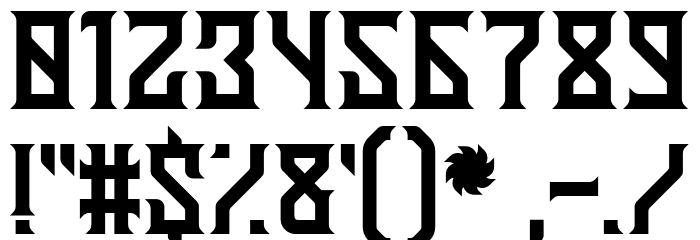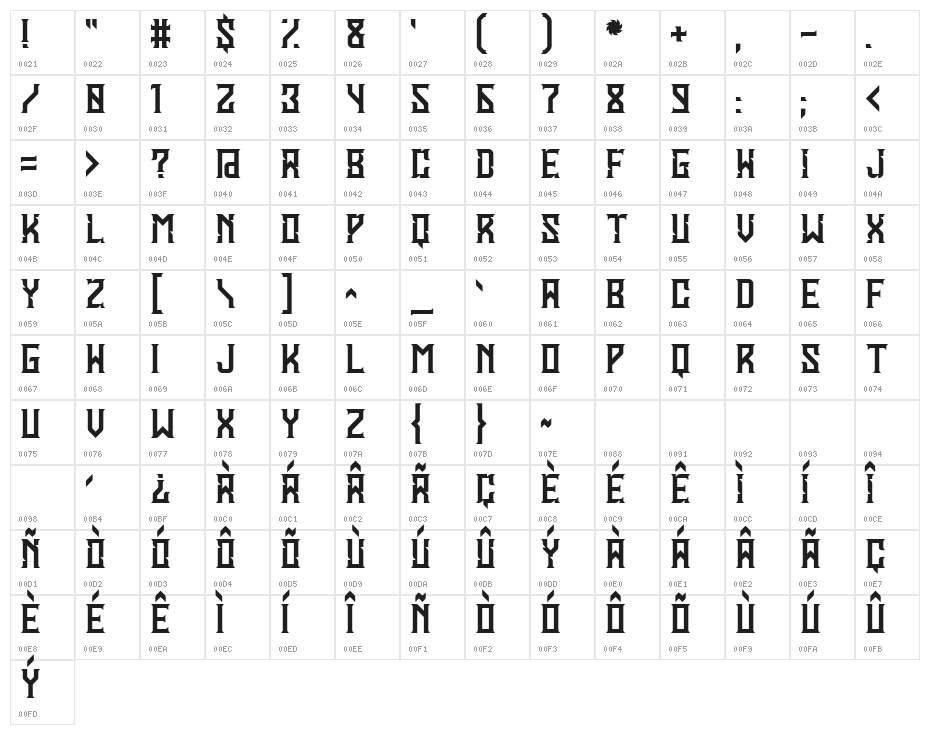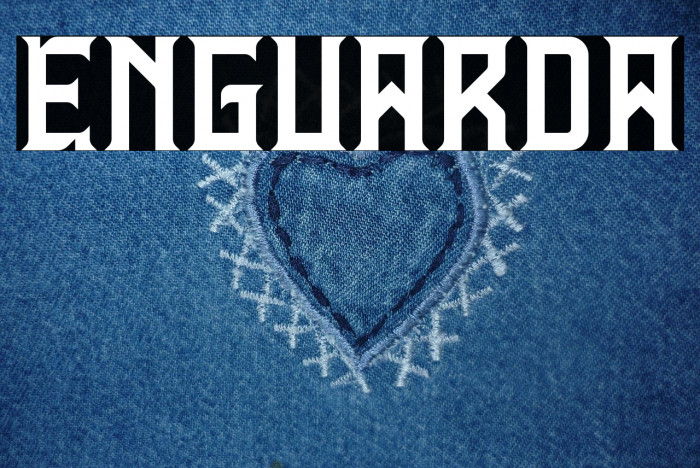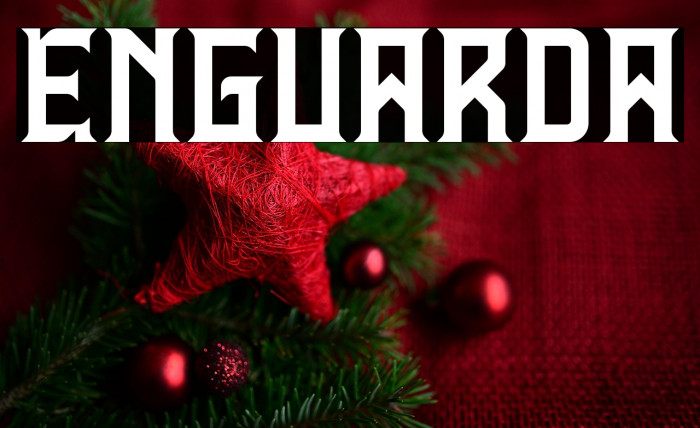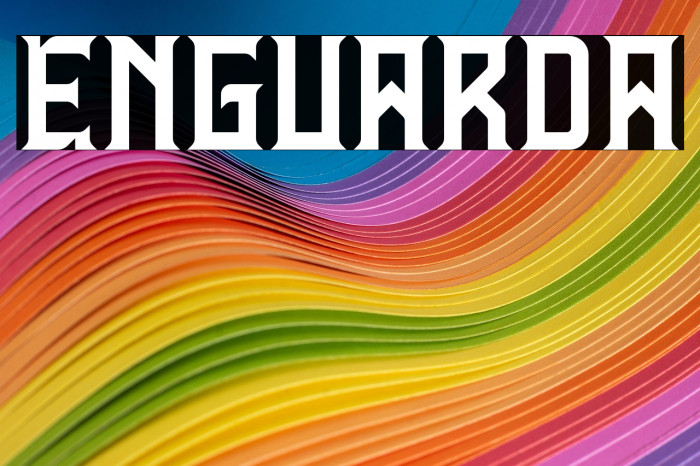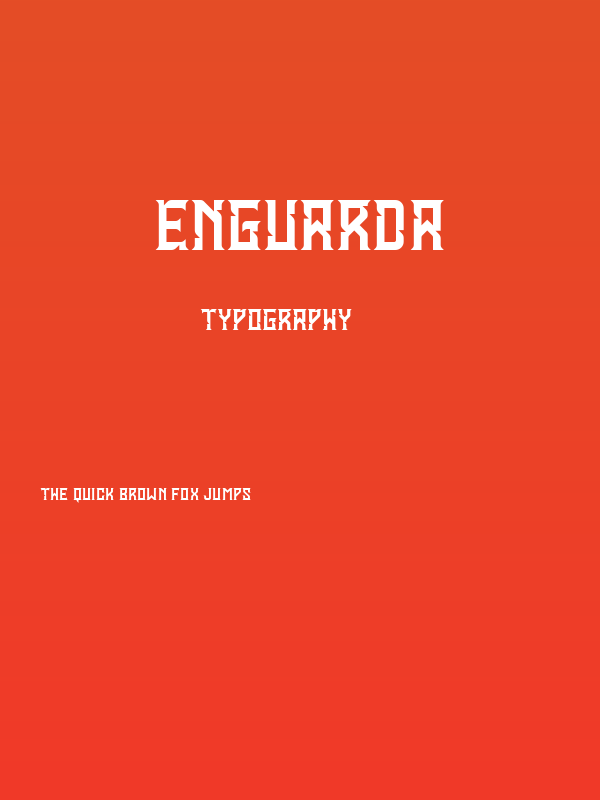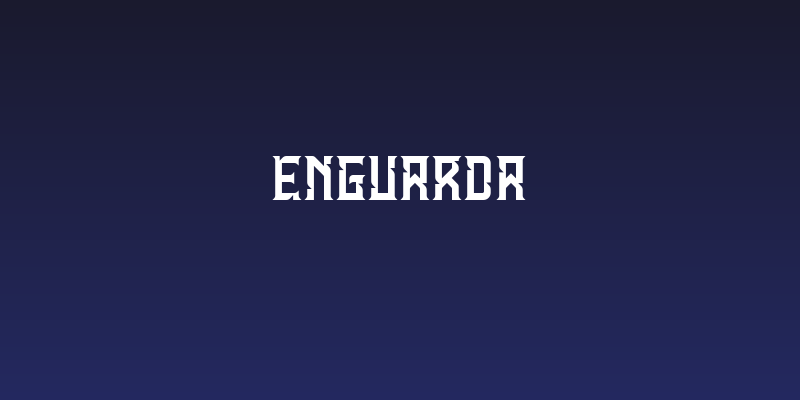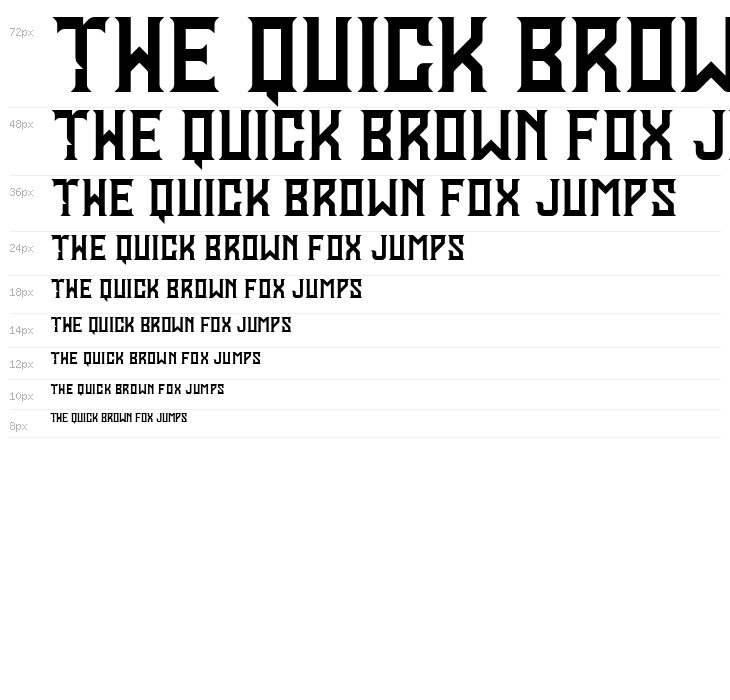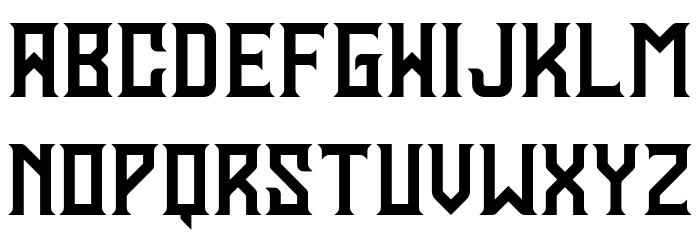
Enguarda Font
Enguarda Description
This font features a bold and striking design with sharp, angular edges and a geometric structure. The characters are crafted with a high level of detail, showcasing a unique blend of modern and traditional elements. The uppercase letters are particularly prominent, with a strong presence that commands attention. The numerals and special characters maintain the same bold style, ensuring consistency across all text. This font's distinct appearance makes it ideal for projects that require a strong visual impact.